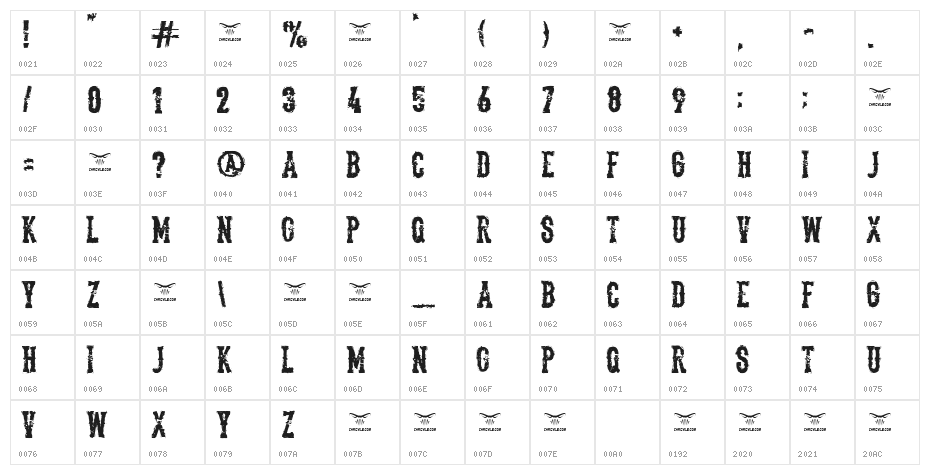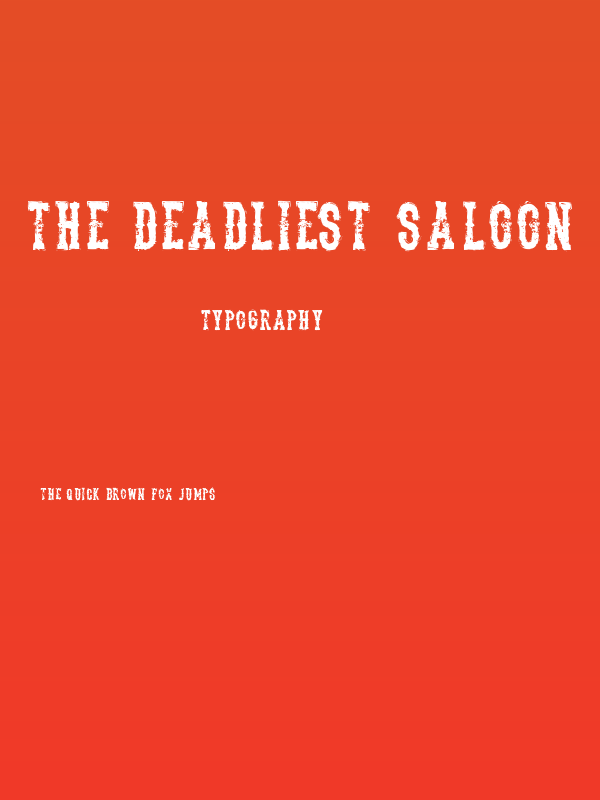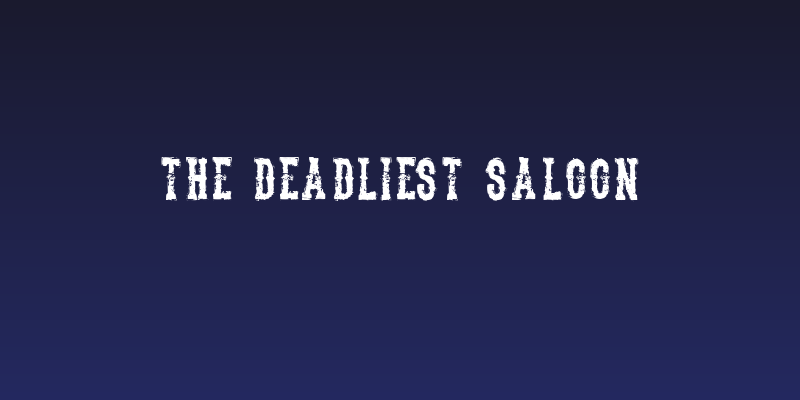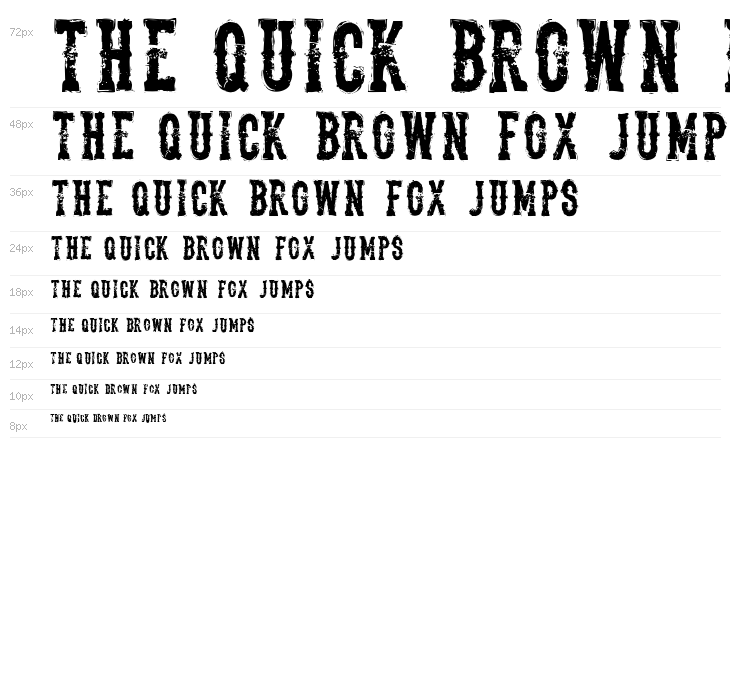
The Deadliest Saloon Font
The Deadliest Saloon Description
This font features a rugged, distressed style with a bold, impactful presence. Each character appears weathered and worn, giving it a vintage, Western saloon feel. The uppercase letters are prominent and commanding, while the lowercase letters maintain the same distressed aesthetic. Numbers and special characters follow suit, adding to the cohesive, gritty look. The texture suggests an aged, rustic environment, perfect for evoking a sense of history and character. This font is ideal for projects that require a bold statement with a touch of nostalgia and rugged charm.
| Proposed Projects | Ideal for posters, signage, branding for rustic or vintage-themed businesses, and event invitations with a Western or historical theme. |